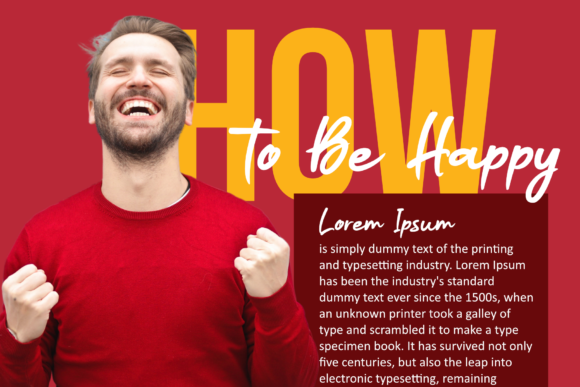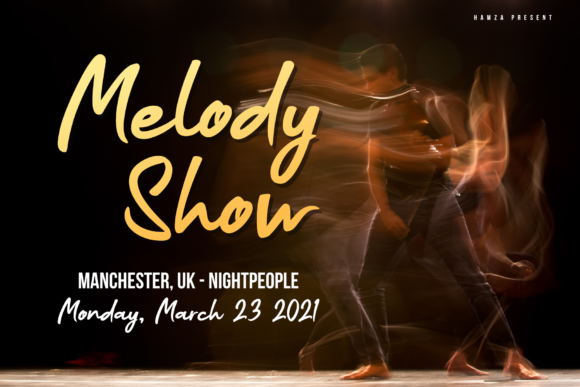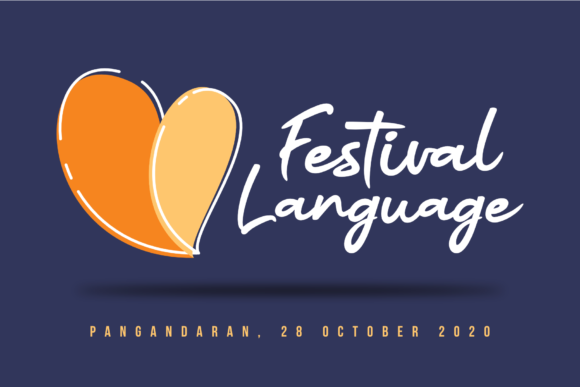
Introduction to Common Rejection Font
Have you ever stared at a blank page, trying to bring your creative idea to life, only to feel stuck? This is the moment when a perfect design resource can be the game-changer. For designers, finding the right font can be the difference between a mediocre and an amazing project.
That’s where the Common Rejection Font comes in – a modern and stylish handwritten font that’s perfect for adding a personal touch to your creative project. With its high-quality design, it’s no wonder that this font has become a favorite among designers and artists.
Whether you’re working on a logo, a quote, or a travel title, the Common Rejection Font offers a unique and creative solution that’s sure to make your design stand out. Plus, it’s a free download, making it an accessible design resource for anyone looking to elevate their creative project.
Key Features of Common Rejection Font
- High-quality design: The Common Rejection Font is crafted with precision and attention to detail, ensuring a professional and polished look for any creative project.
- Transparent background: This versatile font allows for seamless integration with any design, making it an ideal design resource for artists and designers.
- Unique characteristics: The Common Rejection Font features a unique, hand-drawn aesthetic that adds a touch of personality to any design, making it an excellent choice for creative projects.
- Perfect for creative projects: Whether you’re working on a graphic design, digital art, or typography project, the Common Rejection Font is an excellent design resource to have in your toolkit.
Honest Review: Common Rejection Font
I recently stumbled upon the Common Rejection Font, a free download that caught my attention for its unique aesthetic. As a designer, I was curious to see how this font would perform in a creative project.
- ✨ High quality glyphs that maintain their integrity even at larger font sizes.
- ✨ A transparent background that allows for seamless integration with any design.
- ✨ The font’s bold and edgy feel makes it perfect for adding a touch of attitude to any project.
- ⚠️ The font’s limited character set might make it less suitable for extended texts or complex designs.
- ⚠️ The font’s bold style can be overwhelming if not used judiciously.
Overall, I’d say the Common Rejection Font is a great design resource for those looking to add a touch of edginess to their projects. While it may have some limitations, its high quality and unique aesthetic make it a valuable addition to any designer’s toolkit.
Introduction to Common Rejection Font
The Common Rejection Font is a unique design resource that can add a touch of creativity to your project. With its high-quality design and transparent background, it’s perfect for adding a subtle yet striking element to your work.
The Common Rejection Font can be used in a variety of creative projects, including:
- Typography
- Branding